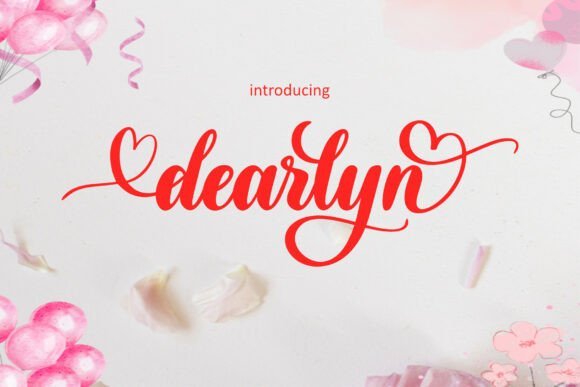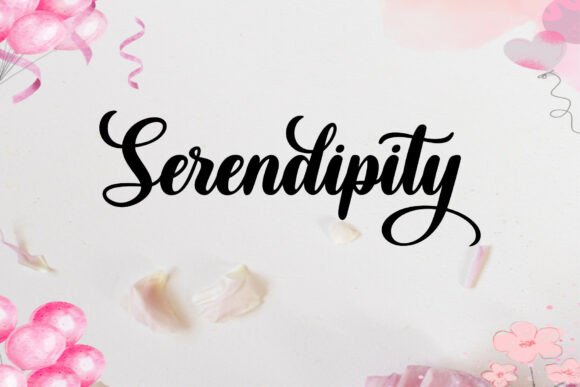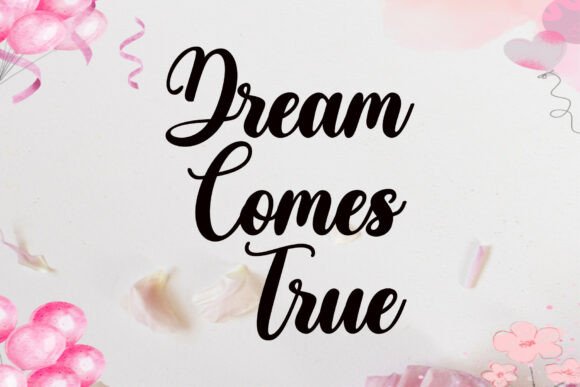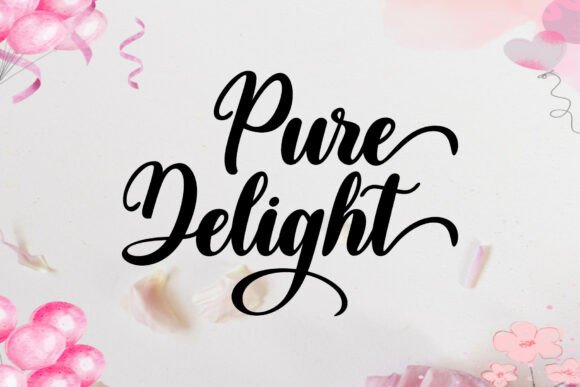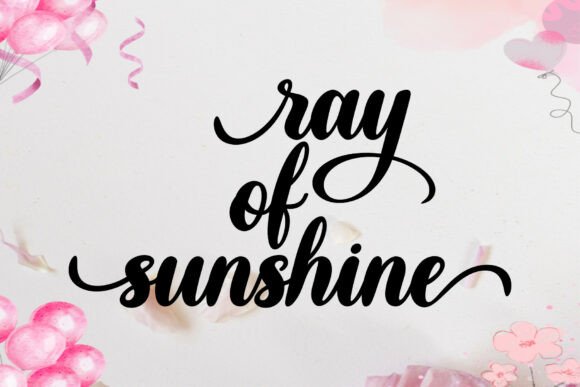
Bring a Touch of Whimsy to Your Designs with Dearlyn Font
Have you ever stumbled upon a font that makes your creative heart skip a beat? For designers, finding the perfect typography can be the difference between a good design and a great one. And that’s exactly what Dearlyn Font is designed to do – bring sweetness and warmth to any project.
With its flowing letterforms and modern calligraphy style, Dearlyn Font is perfect for creating romantic and playful designs that capture the essence of love, celebration, and joy. Whether you’re working on a wedding invitation, Valentine card, or branding project, this charming handwritten script font is sure to add a touch of elegance and whimsy. By incorporating Dearlyn Font into your designs, you can bring a personal touch that will leave a lasting impression on your audience.
- Unique Characteristics: Dearlyn Font features a unique blend of modern and vintage elements, with a mix of geometric and organic shapes, creating a distinctive and eye-catching look.
Designer Review: Dearlyn Font
I recently had the chance to work with the Dearlyn Font, and I must say it’s an interesting addition to the world of typography. Here’s my honest take on this font.
- Creamy, vintage feel that’s perfect for designs with a nostalgic touch.
- Distinctive flair to the letterforms, making it easy to recognize and remember.
- Works well in smaller text sizes without losing its legibility.
- The font can be a bit too ornate for some designs, overwhelming the overall aesthetic.
- May not be the best choice for body text, as it can be a bit too decorative.
- Limited character set, which may require you to use it in conjunction with another font.
Overall, I think Dearlyn Font is a solid choice for designers who want to add a touch of elegance and sophistication to their projects. While it may not be perfect for every design, it’s a great option for those who want to create something unique and eye-catching.
Tips for Getting the Most Out of Dearlyn Font
Dearlyn Font is a beautiful script font that works well for titles, headings, and body text. To get the most out of it, use it for: